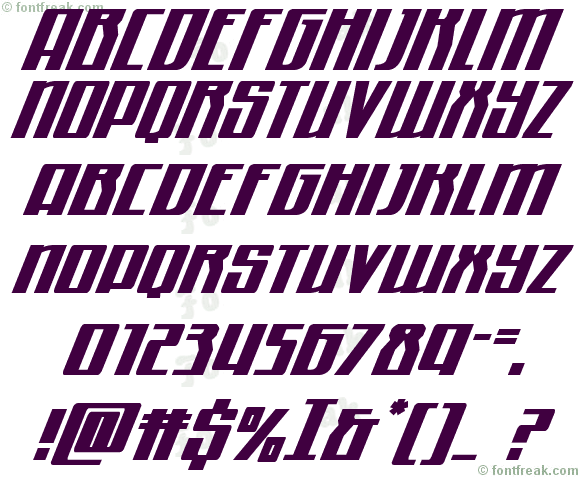
Quantum of Malice Condensed Italic
About Quantum of Malice Condensed Italic
Quantum of Malice Condensed Italic is a striking display font designed by Daniel Zadorozny, falling under the category of decorative typefaces. This font features a condensed italic style that exudes a sense of energy and modernity, making it perfect for various creative projects. The visual characteristics of the Quantum of Malice font are defined by its sharp, angular strokes and a consistent weight that enhances its bold presence. The contrast between the thick and thin strokes creates a dynamic visual appeal, while the condensed structure allows for efficient use of space, making it ideal for impactful headlines.
This font is particularly well-suited for use cases such as movie posters, where its dramatic flair can capture attention and convey a sense of excitement. It's also an excellent choice for branding and marketing materials, especially for businesses looking to create a strong visual identity. Additionally, the Quantum of Malice Condensed Italic can enhance restaurant menus, adding a modern twist to traditional designs. Graphic designers and content creators will find this font versatile for various applications, from digital graphics to print media.
The target audience for this font includes graphic designers, small business owners, and content creators who seek to make a statement in their projects. Its unique design elements and modern aesthetic make it a standout choice for anyone looking to create something visually captivating. With a license type of freeware, users can enjoy the benefits of the Quantum of Malice Condensed Italic font free download, allowing for creativity without financial constraints. This font stands out for its ability to blend contemporary design with practicality, ensuring that it remains a valuable addition to any designer's toolkit.